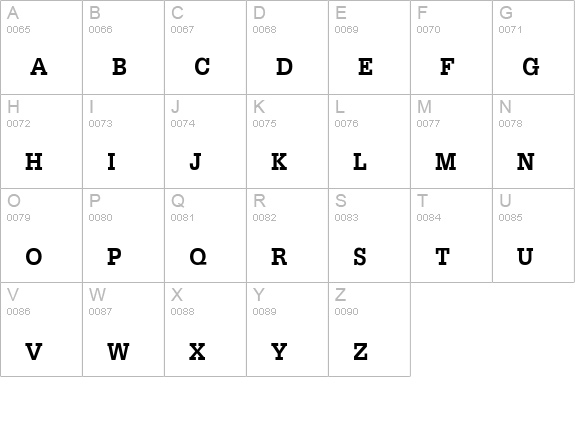
DilleniaUPC Bold is a strong, high-contrast variant in the DilleniaUPC typeface family \xE2\x80\x94 well suited to headlines, attention-grabbing titles, and strong calls-to-action.
DilleniaUPC Bold font is a striking and modern typeface that exudes confidence and elegance. Its bold weight commands attention and makes a statement in any design project. With its clean lines and strong presence, this font is perfect for headlines, titles, and branding materials. The best part is that DilleniaUPC Bold font is available for free download at FontsMarket.com. This means you can easily add this versatile and eye-catching font to your collection without any cost. Whether you're a designer, marketer, or hobbyist, having access to high-quality fonts like DilleniaUPC Bold can elevate your projects and help you stand out from the crowd. Download it today and unleash the power of this exceptional font in your creative endeavors.